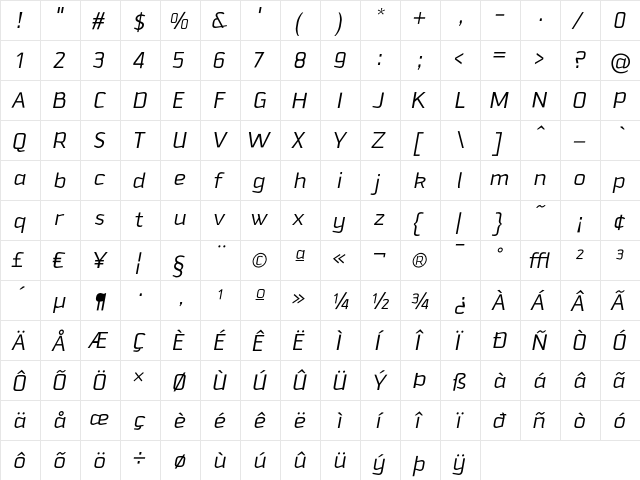
Downtempo LightItalic Font Preview
Downtempo LightItalic
Downtempo LightItalic Font Details
Design Context for Downtempo Typeface
Downtempo offers clean, dependable letterforms without strong stylistic allegiance, making it a practical choice for designers who need flexibility. The slanted form adds forward momentum and visual energy. The delicate stroke weight brings airiness and refinement to layouts.
Pro Tip: Try Downtempo for annotation and caption copy alongside an upright companion — the contrast in angle creates a dynamic but ordered typographic system.